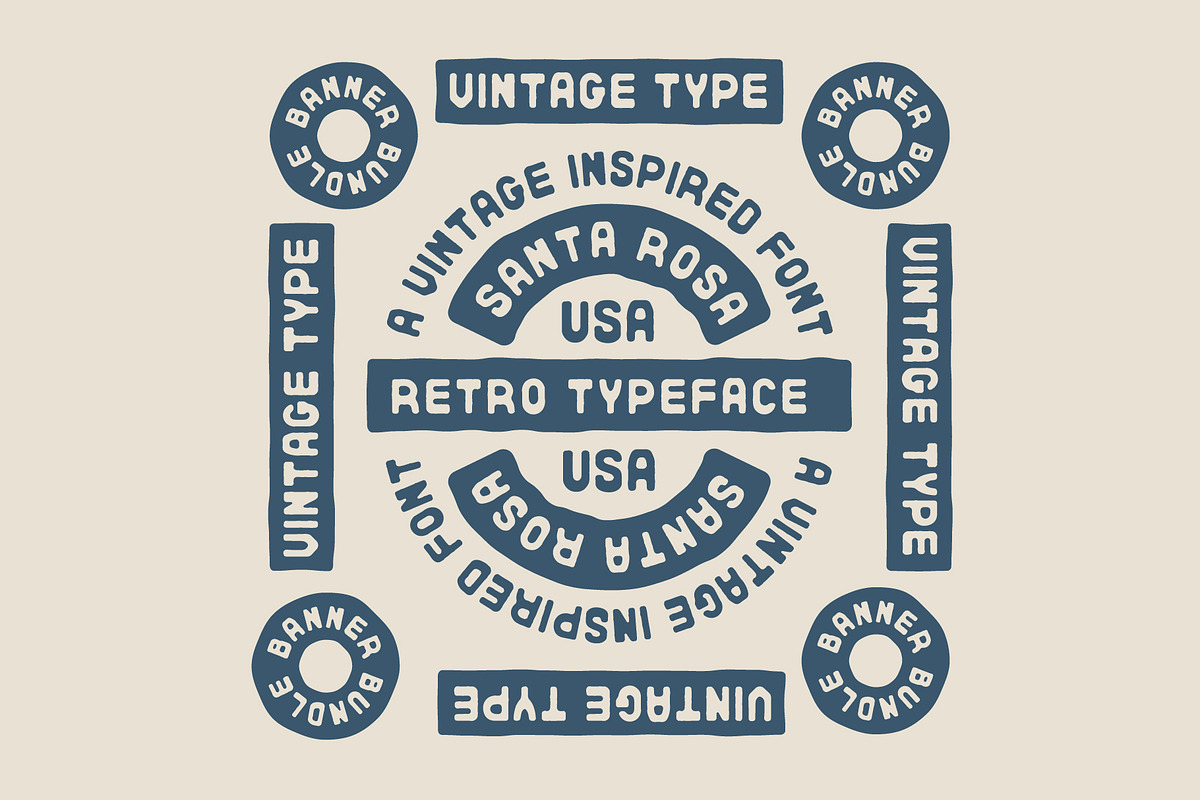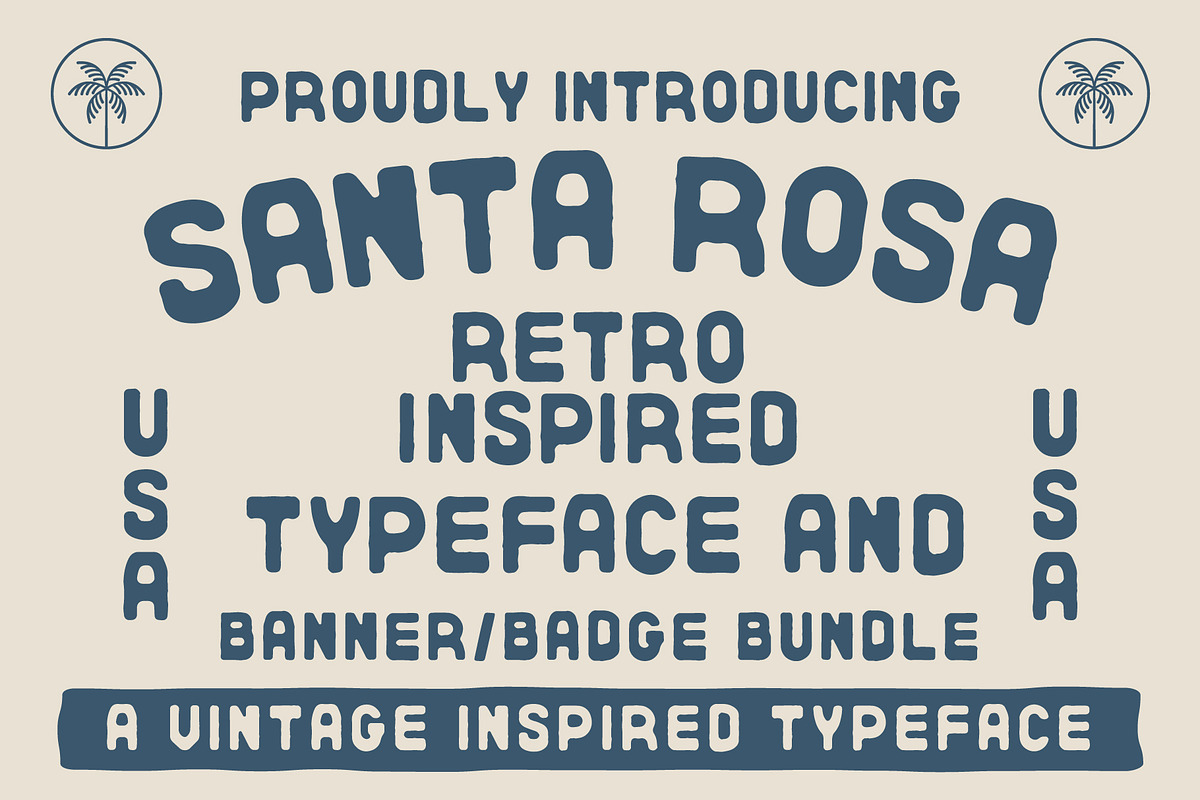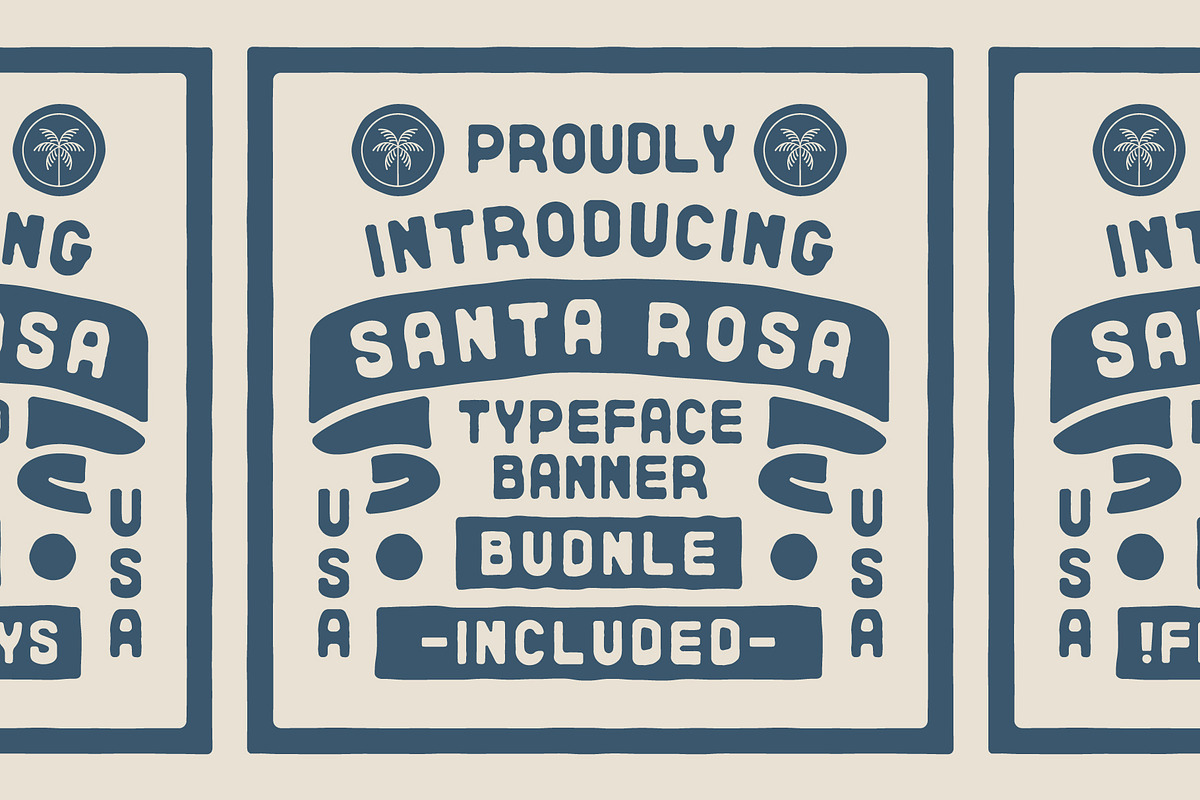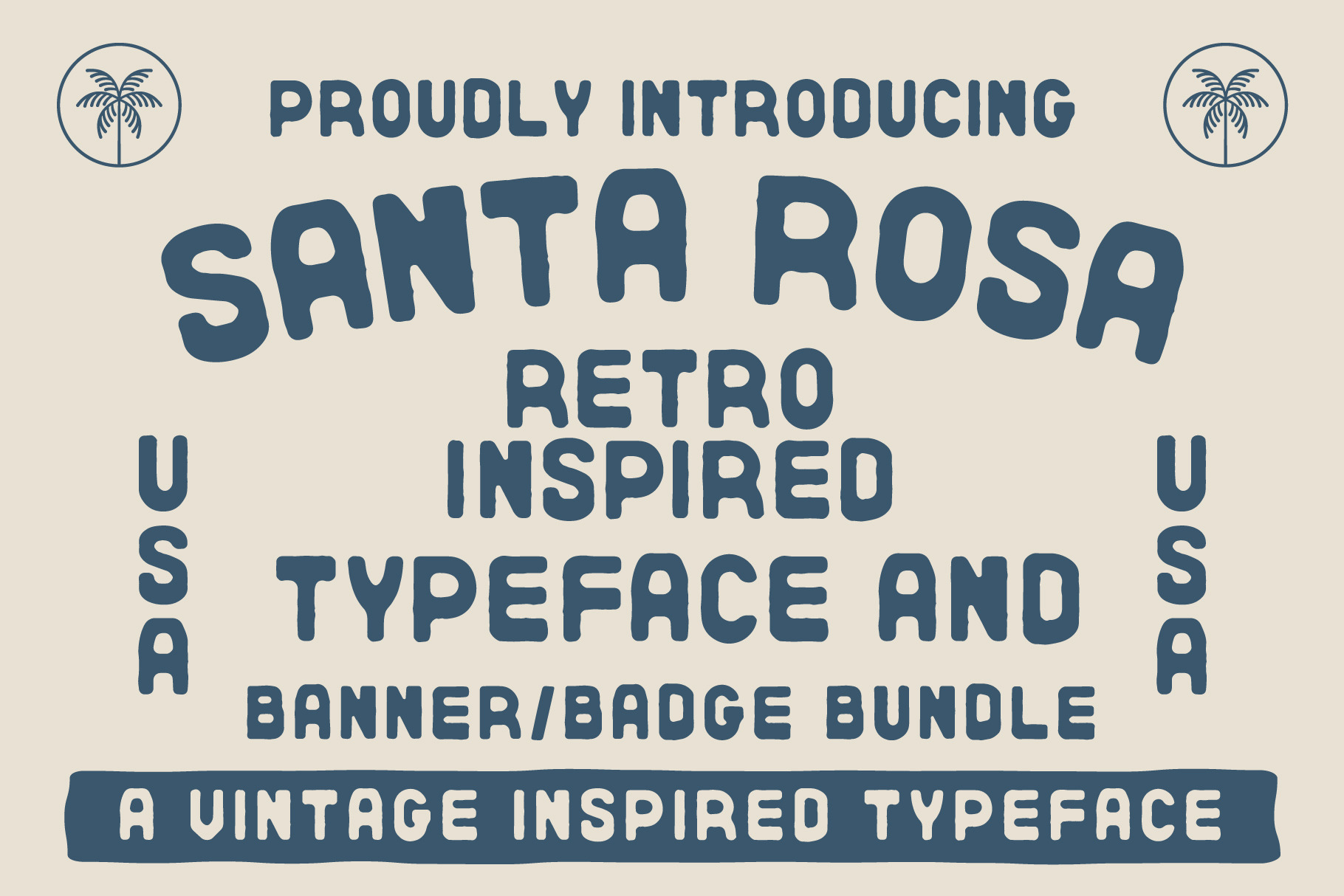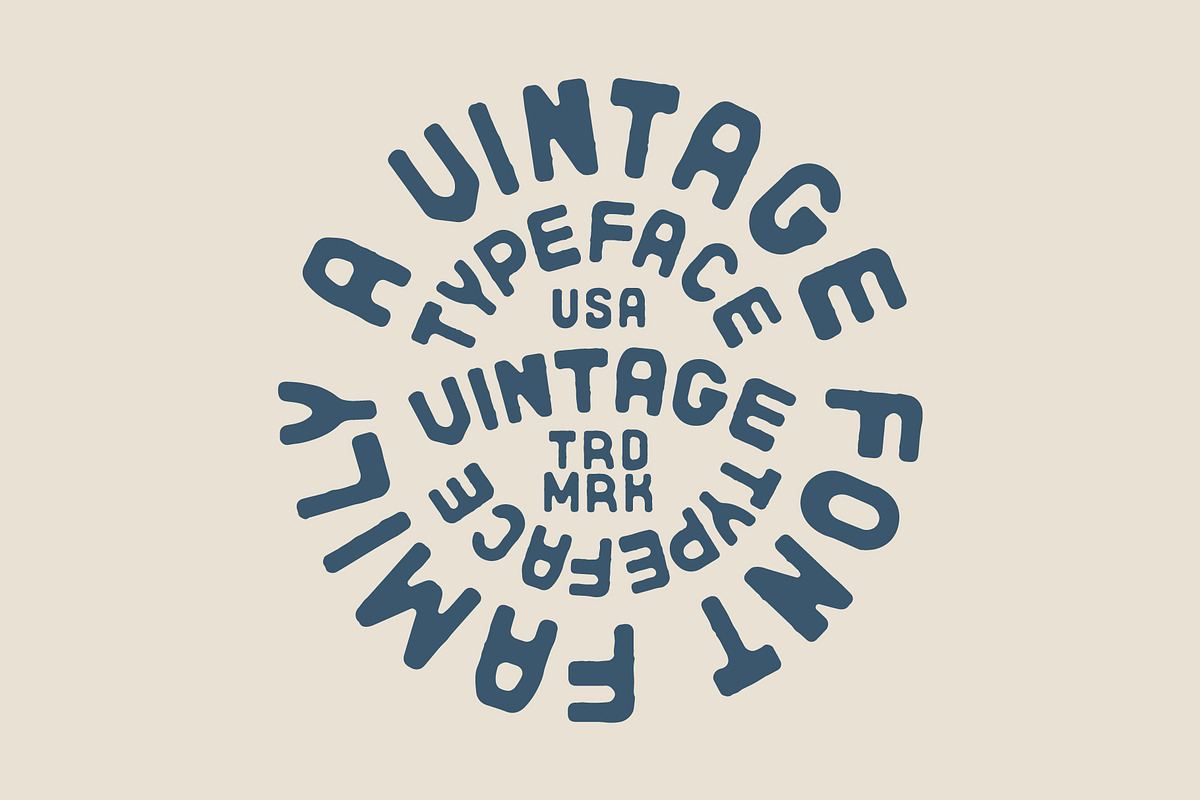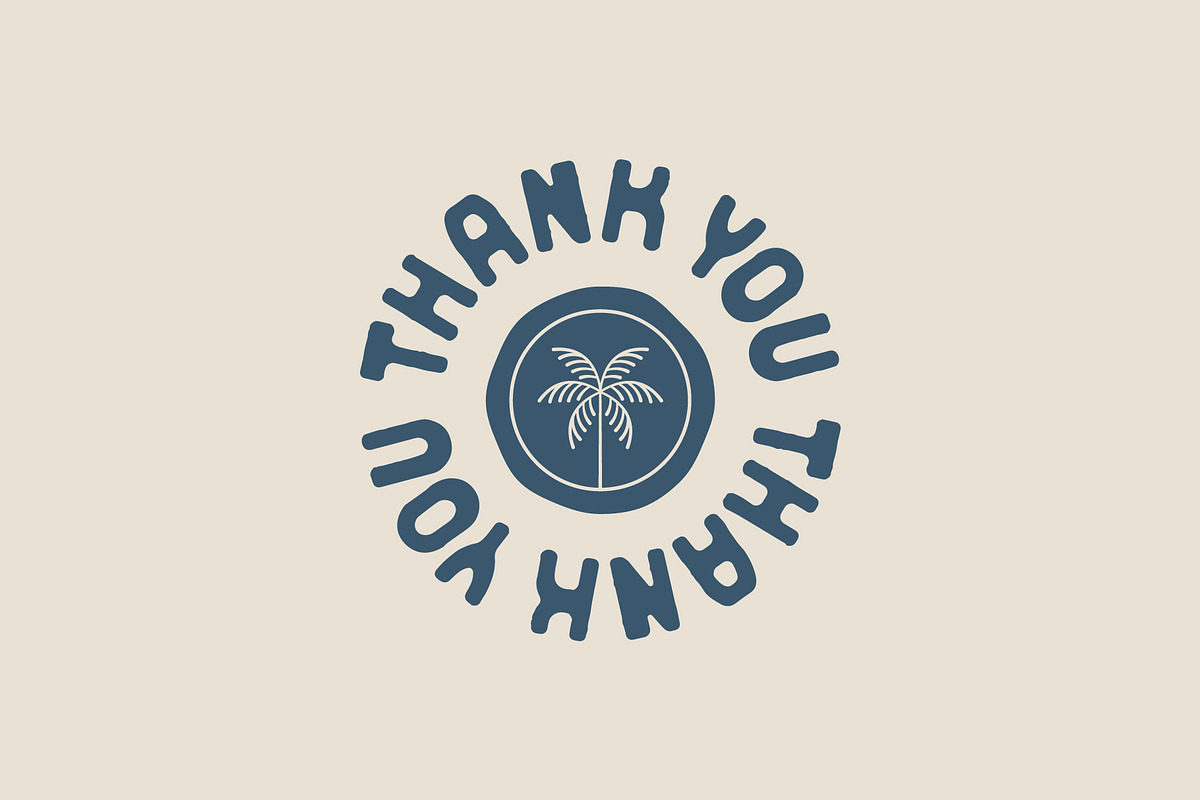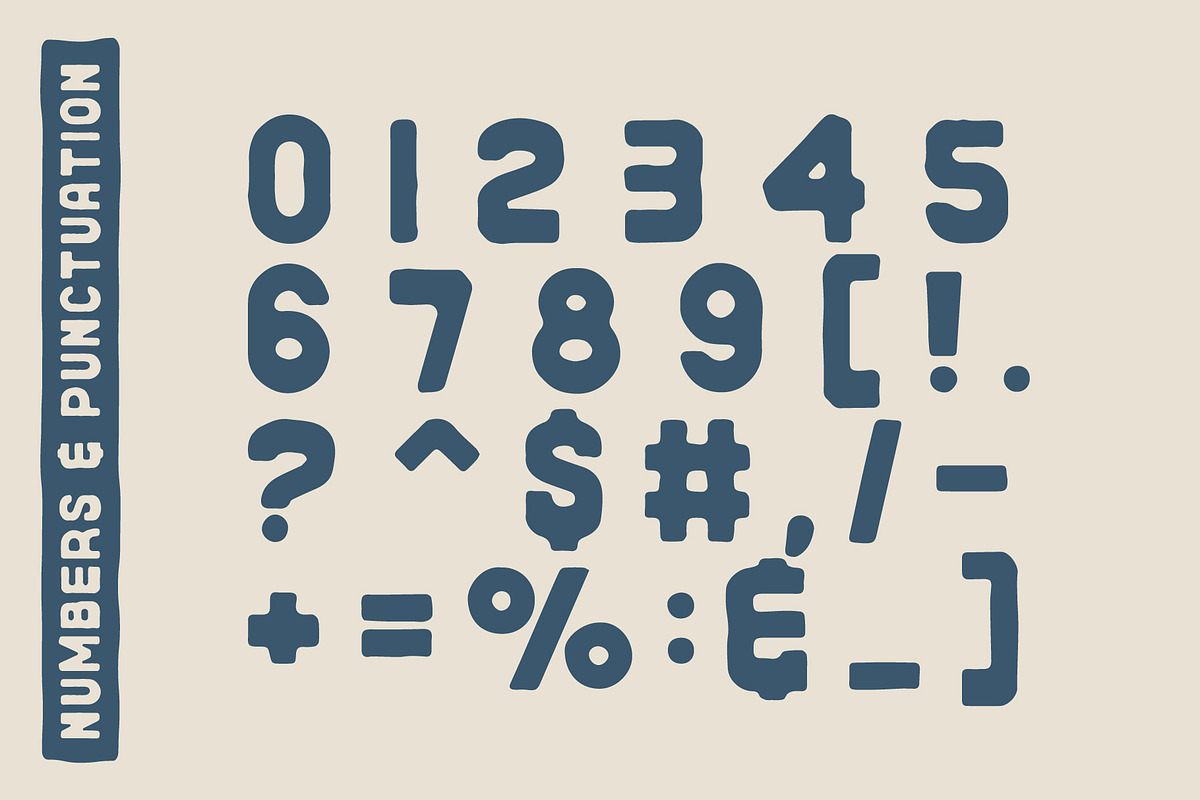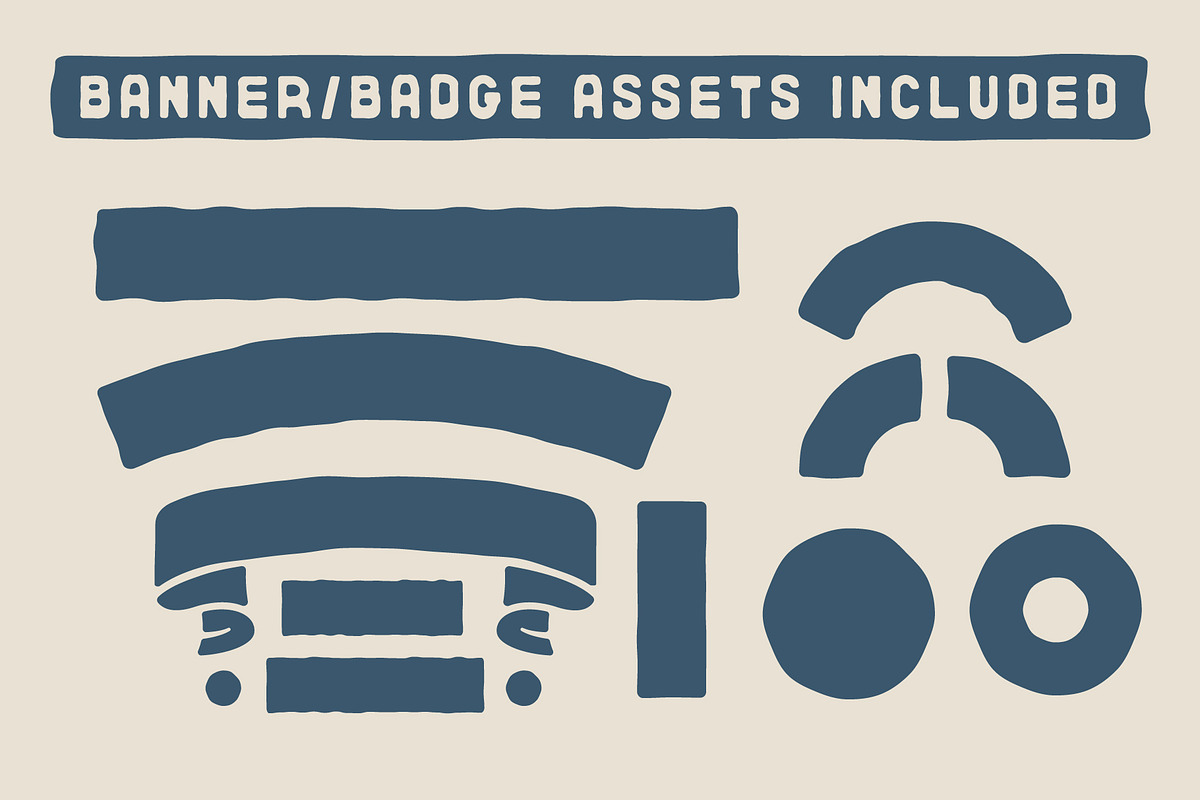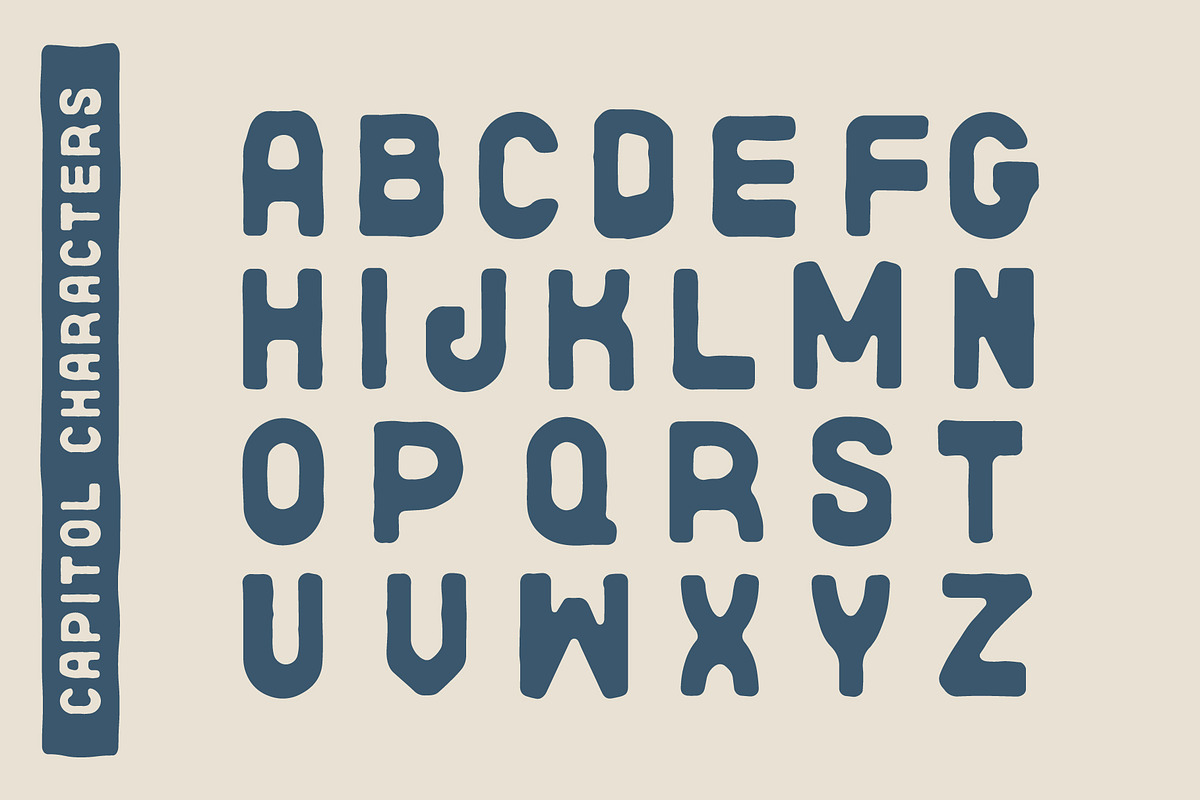
Santa Rosa Typeface Bundle
Introducing the Santa Rosa typeface bundle! Santa Rosa is a sans serif font that features rough and inky letter styles. This bundle also comes with a selection of vector banners and shapes that compliment the fonts hand made nature. This bundle is perfect for any logo, bandana, or branding project. (vector banners and shapes are illustrator compatible)